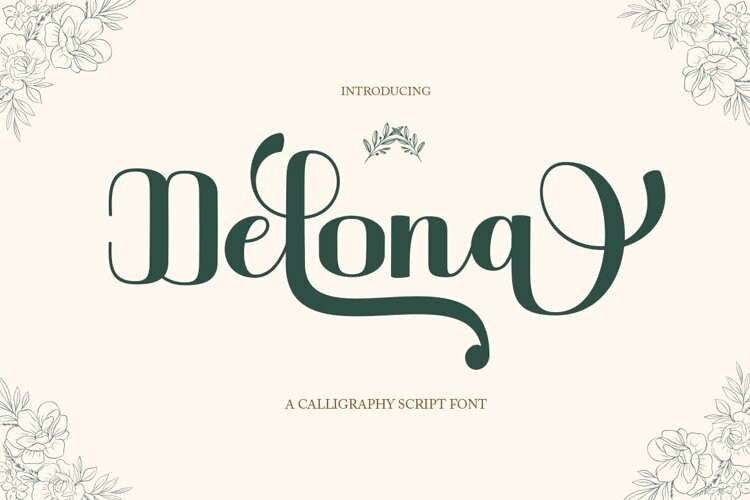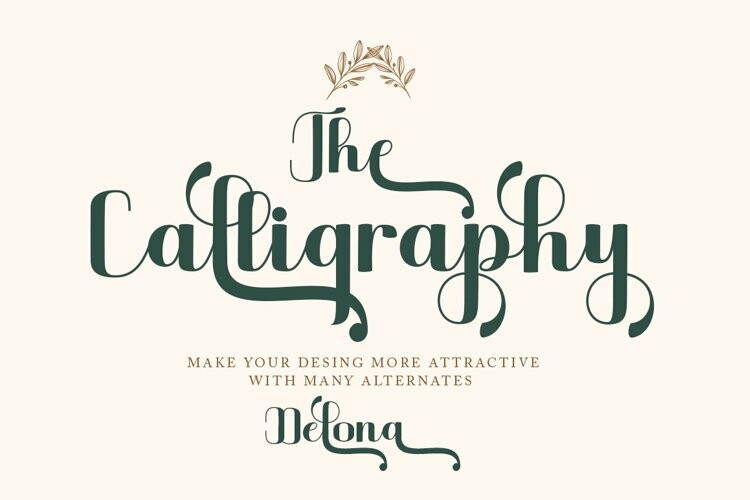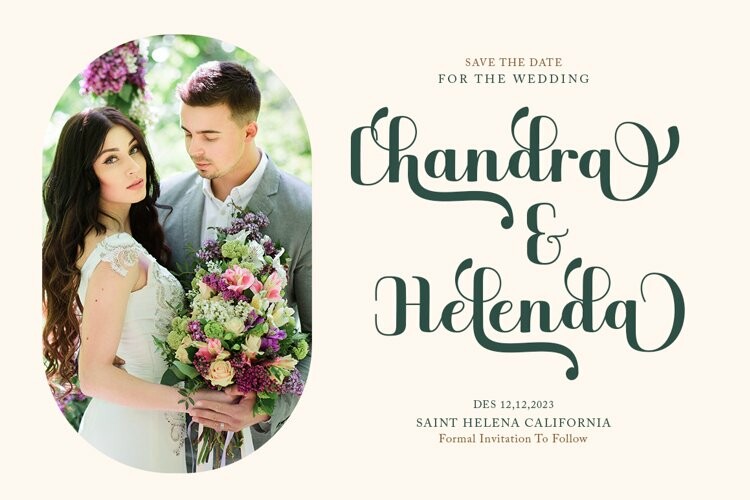
Delona Font
Delona FontDelona is a classy script. This typeface has a nostalgic feel because of its style, so the font is really suitable for your project with a classic/vintage theme. This font is perfectly made to be applied especially in logos, and the other various formal forms such as invitations, labels, logos, magazines, books, greeting / wedding cards, packaging, fashion, make up, stationery, novels, labels or any type of advertising purposes.